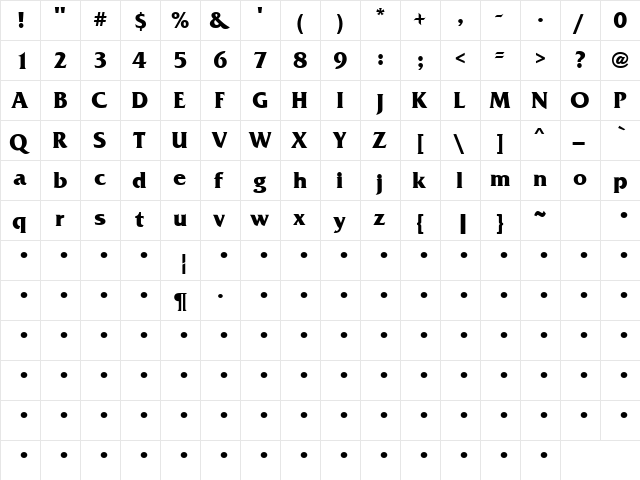
QTFrizQuad Bold
Design Context for QTFrizQuad Typeface
QTFrizQuad takes a measured approach to typography — its balanced proportions and neutral character make it a reliable workhorse for both digital and print work. Its bold stroke weight gives it real presence on the page.